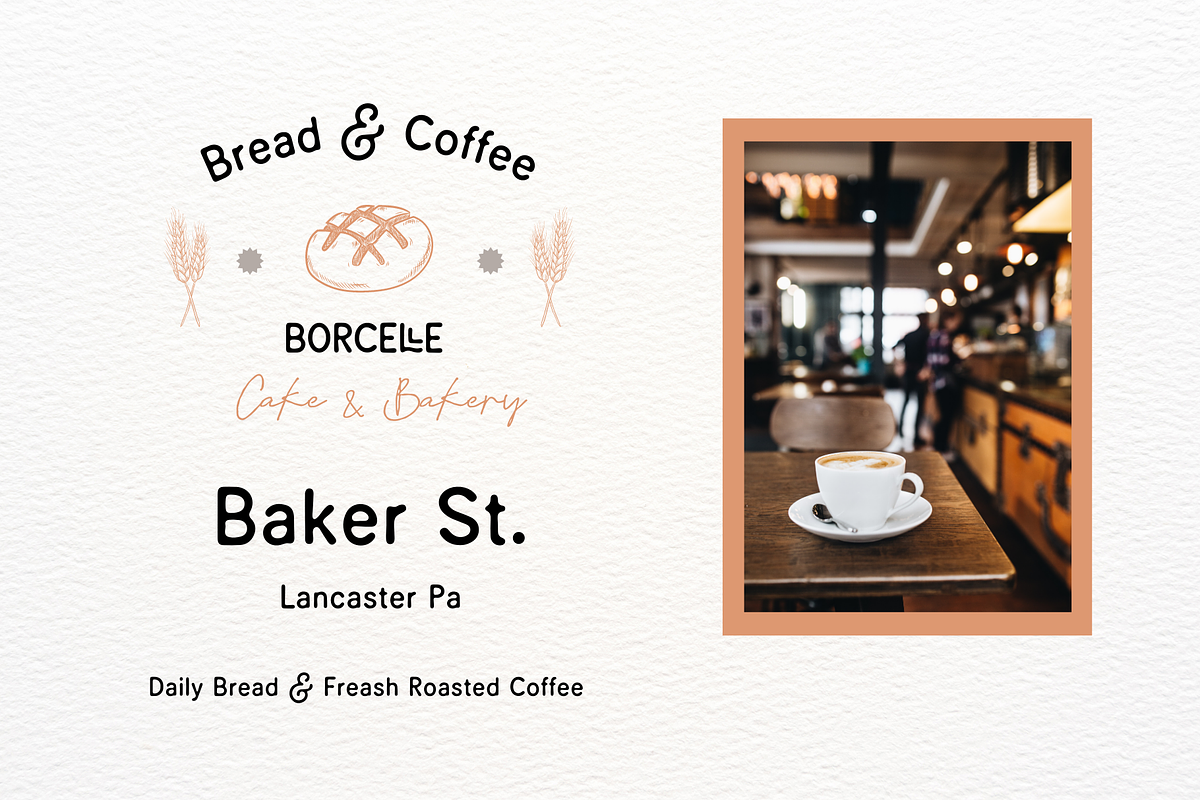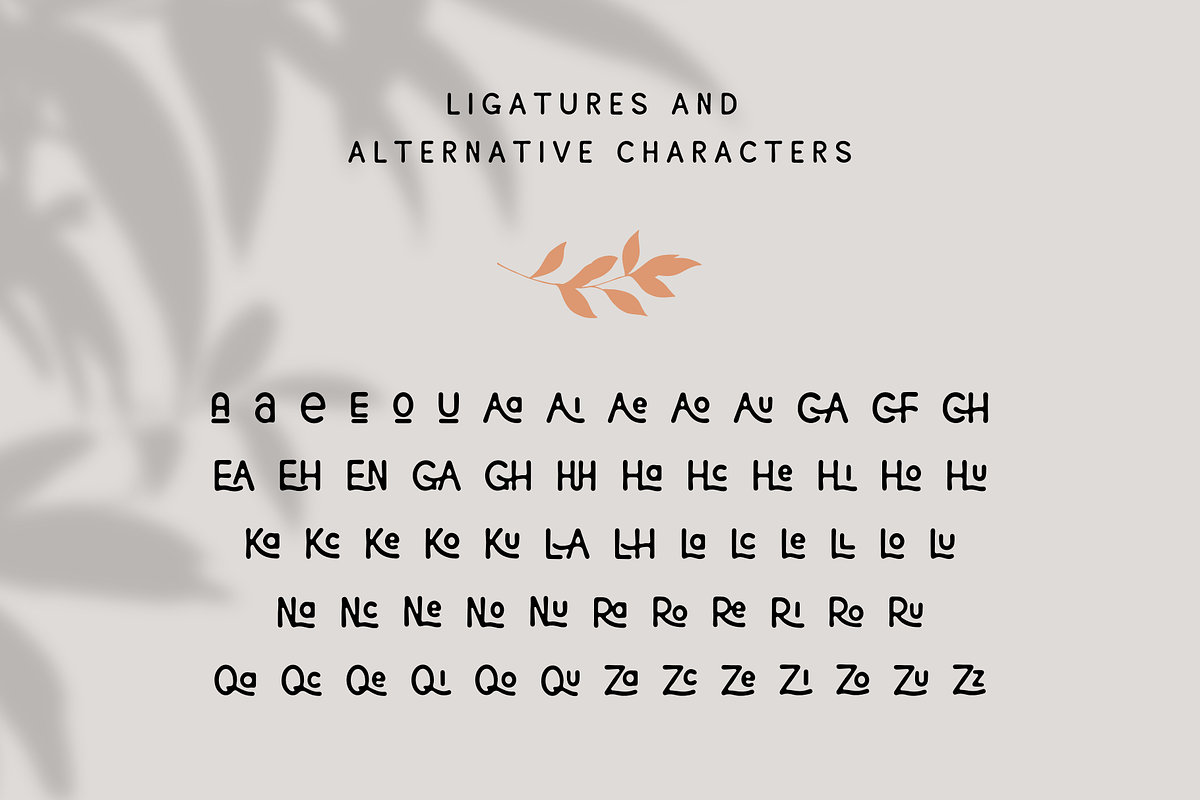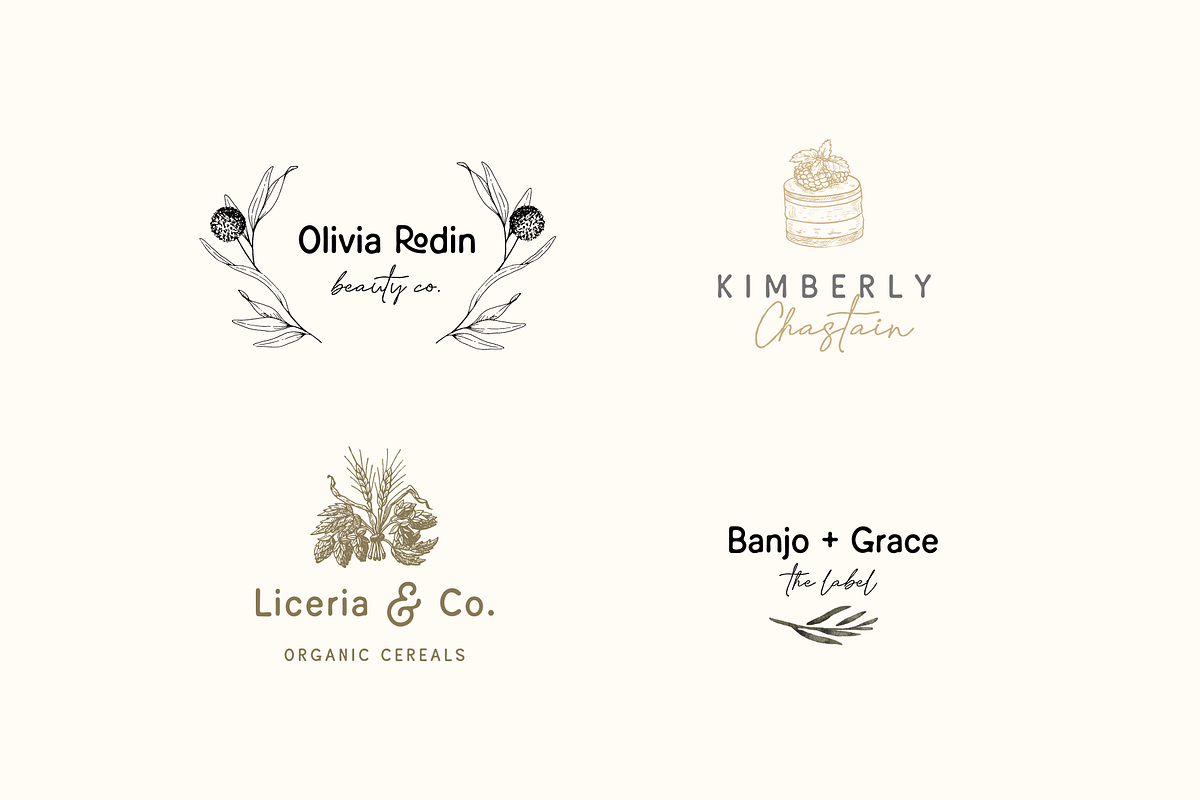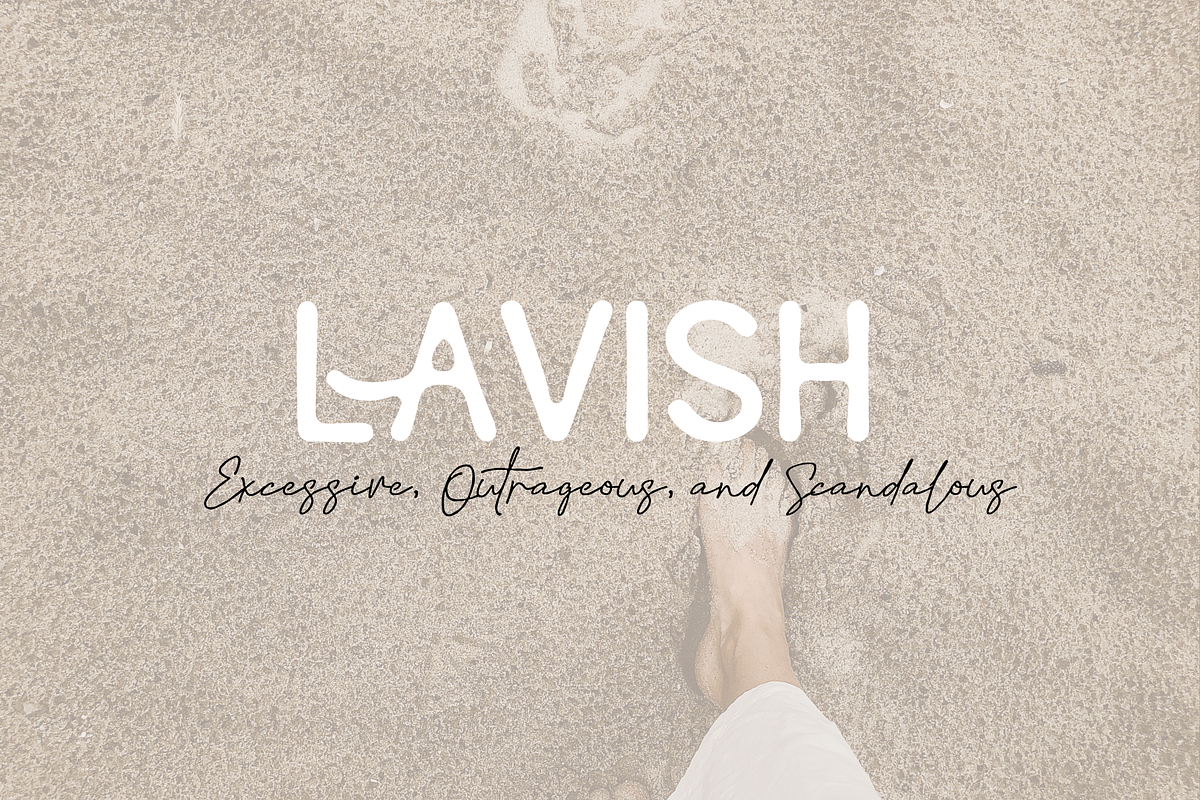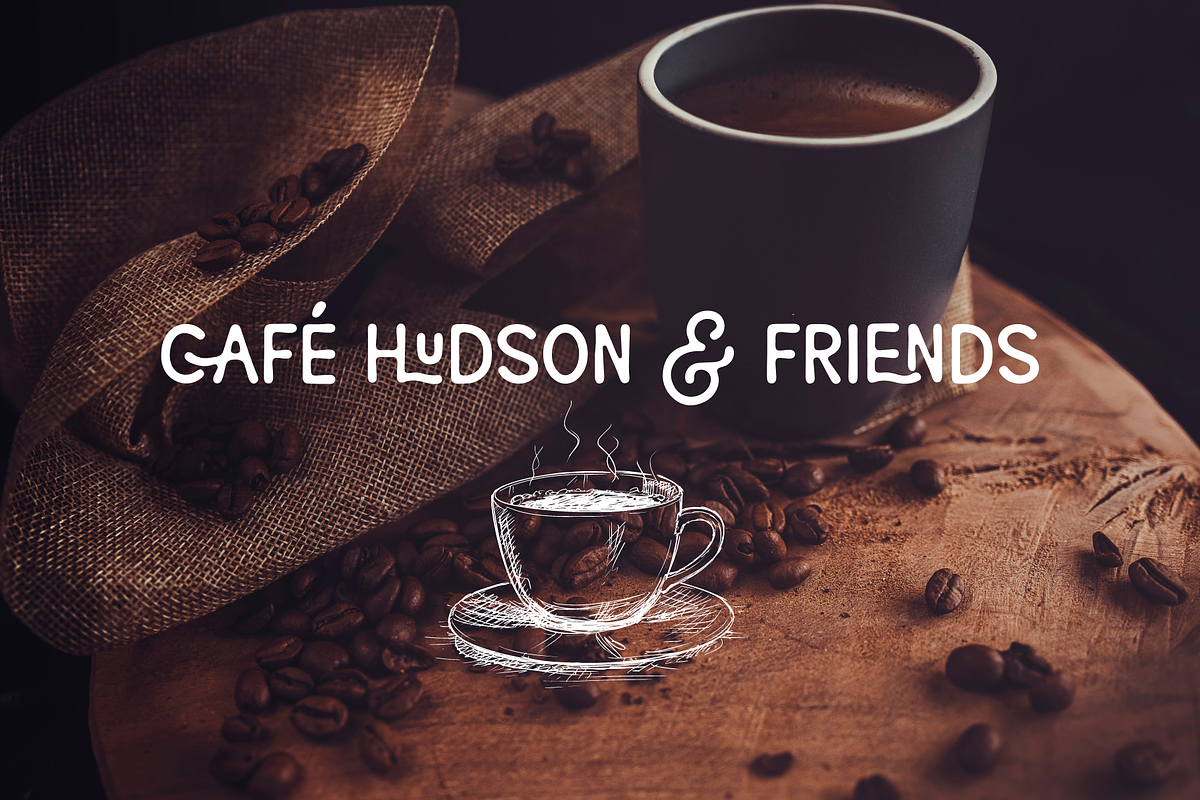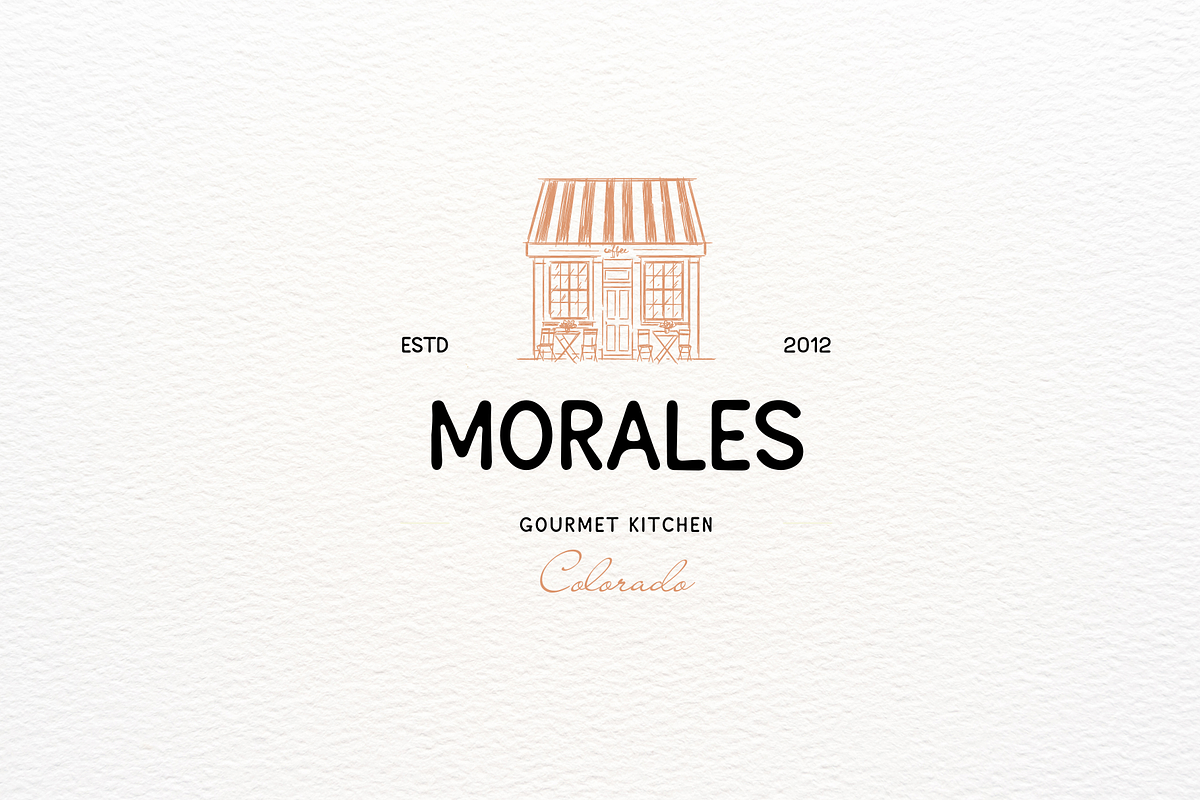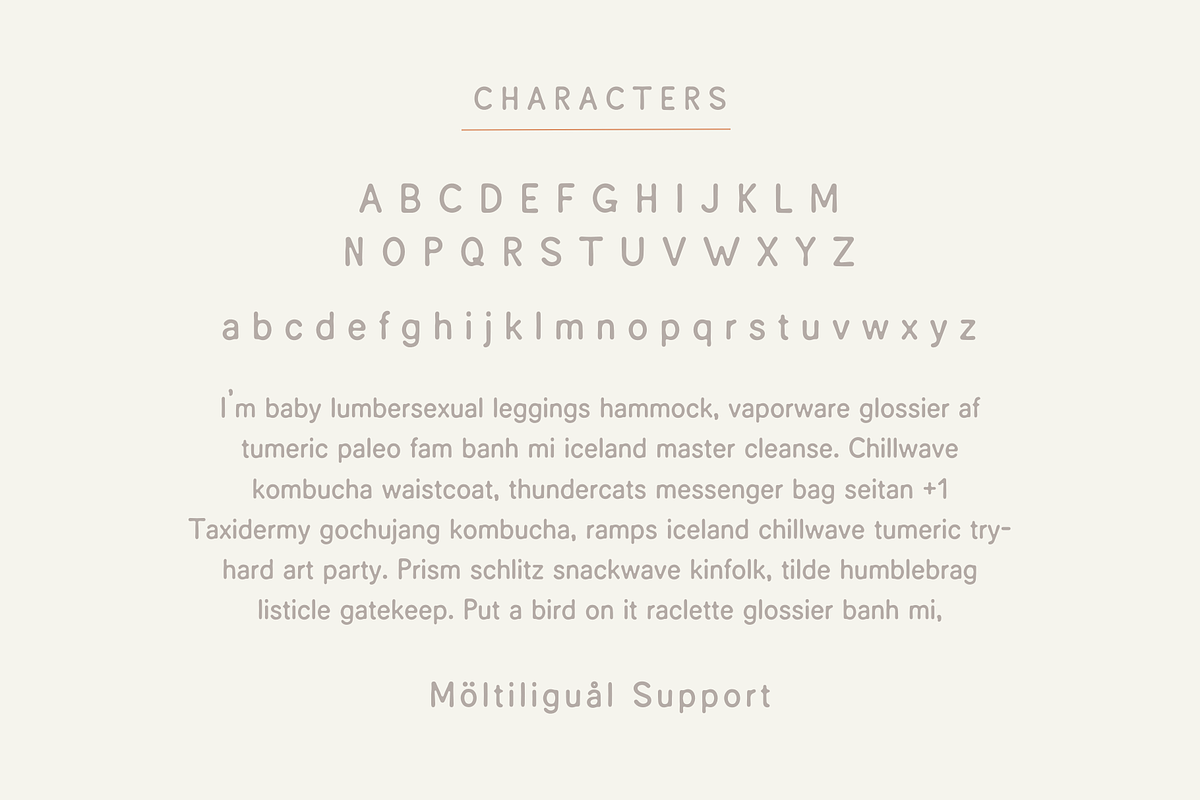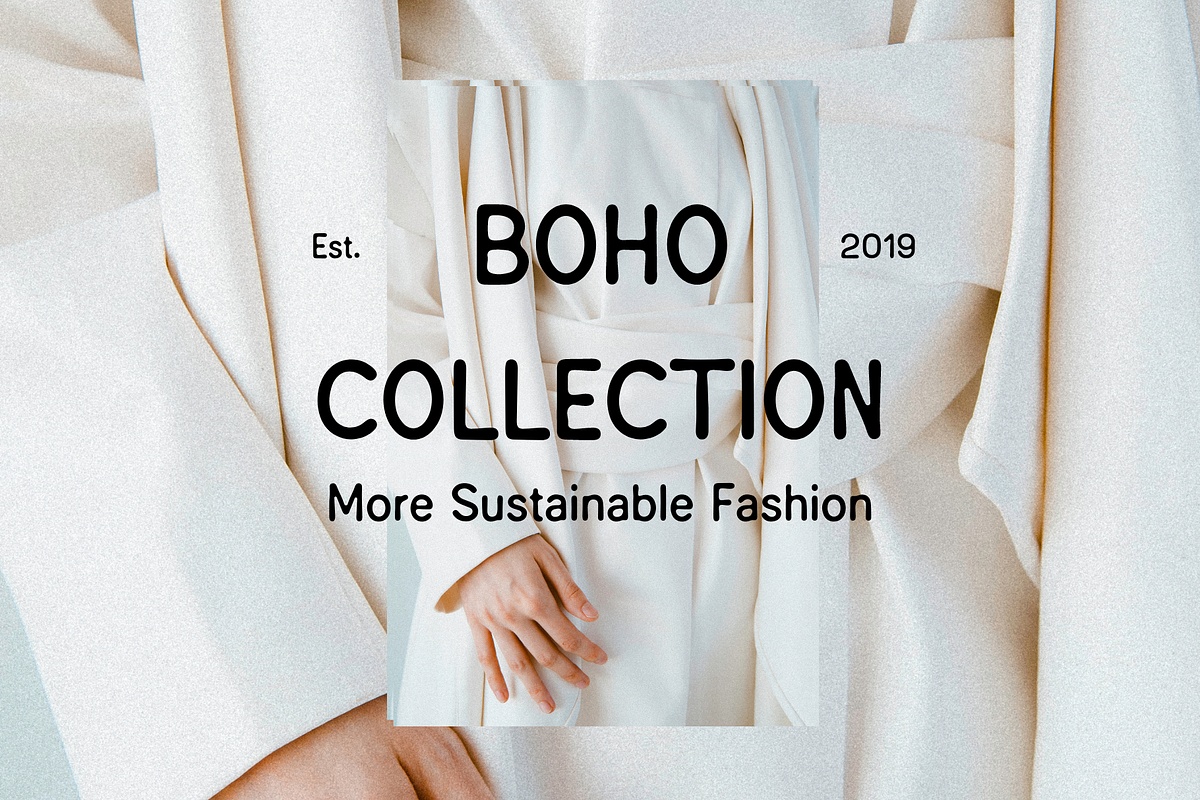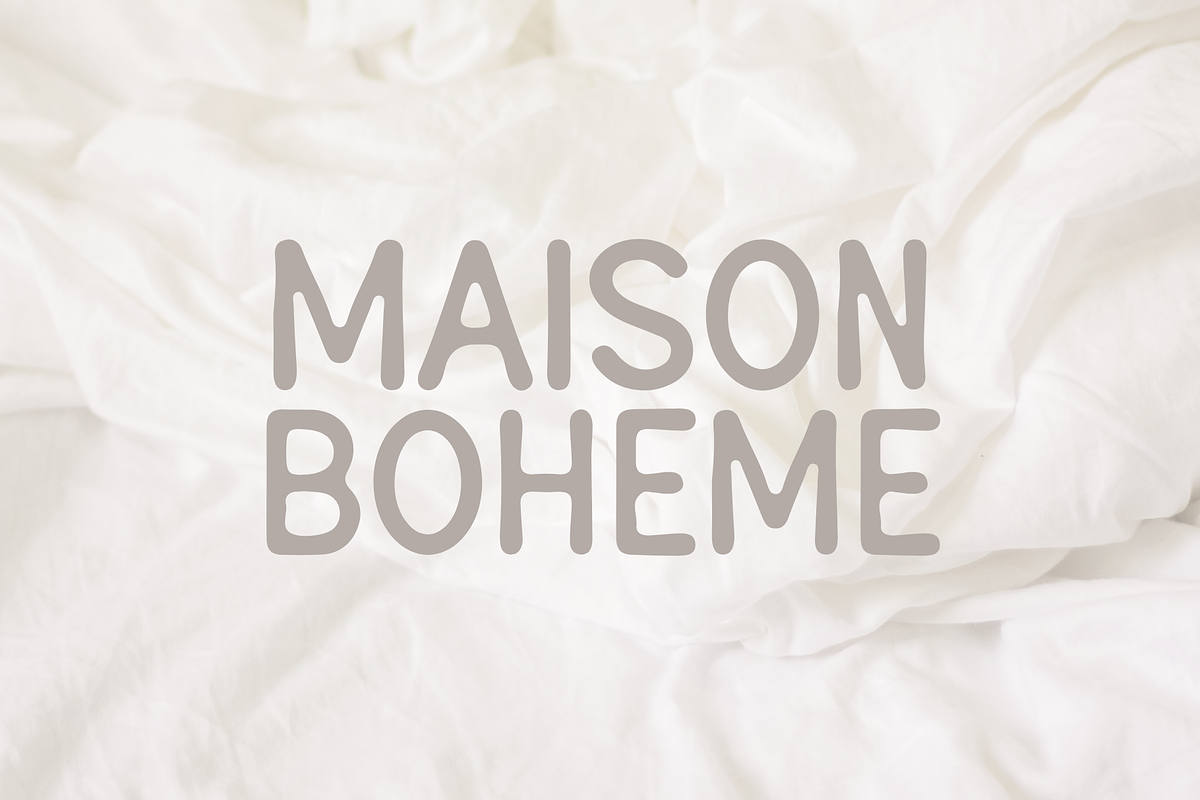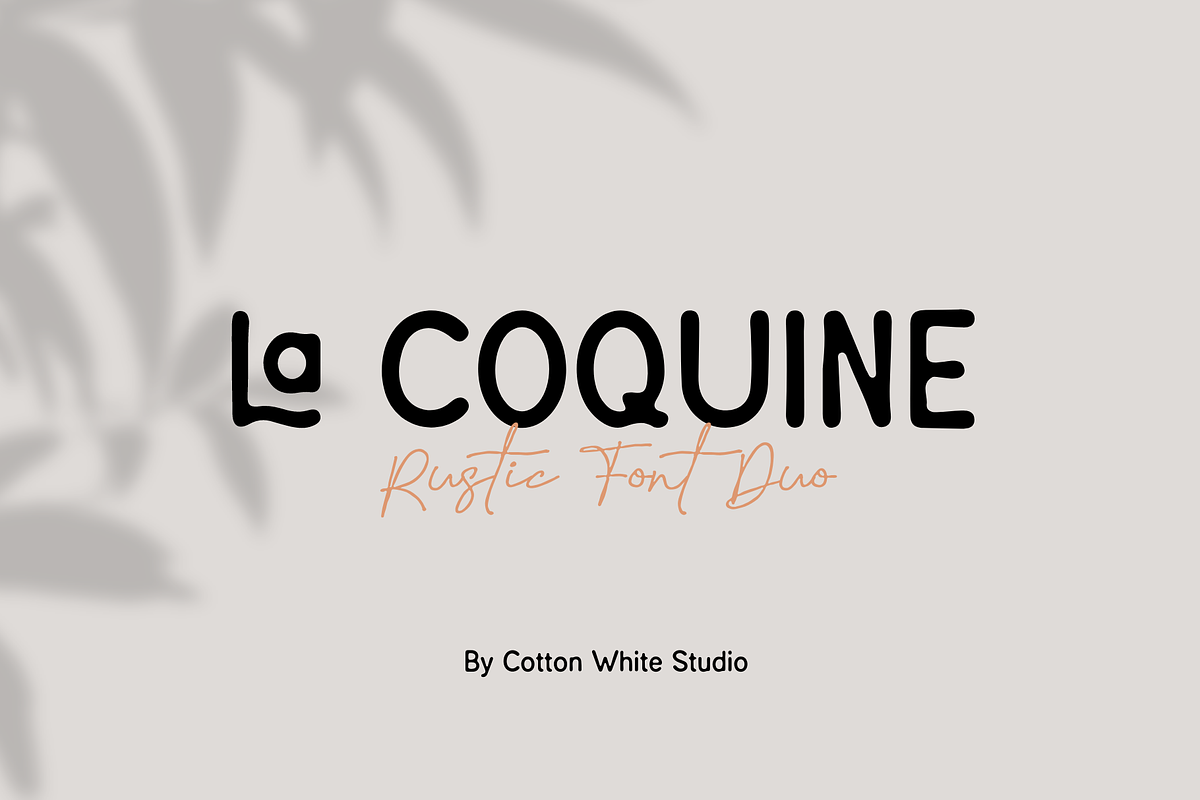
La Coquine
La Coquine Rustic Font Duo includes two handmade fonts with a rustic character. Both fonts has an imperfect style with warmth, character and with a stamp feeling. It's a versatile typeface with a soft, classic and vintage feel, perfect for branding and logo projects, blogs, instagram, fashion, photography, business cards, stationery and more...
Characters: a b c d e f g h i j k l m n o p q r s t u v w x y z A B C D E F G H I J K L M N O P Q R S T U V W X Y Z 0 1 2 3 4 5 6 7 8 9 . , : ; ! ? ' " ‘ ’ “ ” @ _ & # % * + - × ÷ = ~ / ( ) { } [ ] $ ¢ € £ ¥ © ® ™
À Á Â Ã Ä Å Æ Ç È É Ê Ë Ì Í Î Ï Ñ Ò Ó Ô Õ Ö Ø Œ Ù Ú Û Ü Ý Ÿ Þ Ð Ł Š Ž ¡ ¿ « » ‹ › ¤ • ° ± − ¶ § ‰ ⁄ – — à á â ã ä å æ ç è é ê ë ì í î ï ñ ò ó ô õ ö ø œ ù ú û ü ý ÿ þ ð ł š ž ß ı ^ ˆ ˇ ¨ ˜ ` ´ ¸ ‛ ‚ „ … | † ‡